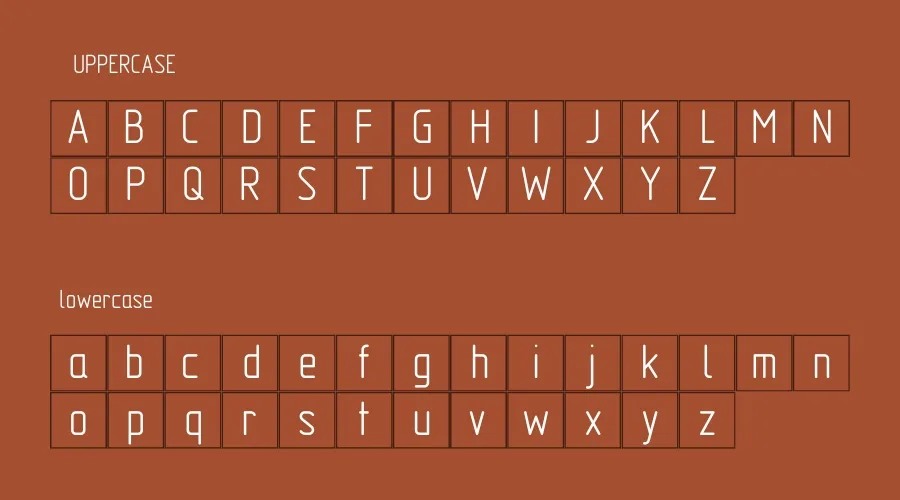
Gost Type A Font
About Gost Type A Font
In this post, we are discussing a very amazing typeface known as Gost Type A Font. The glyphs and characters of this font are excellent. The free version is also provided here. The font character was carefully developed and executed with amazing clarity.
We choose 26 letters from the letter set in upper and lower case, 31 rare characters with focus, and a numbering system from 1 to 10 for this zone.